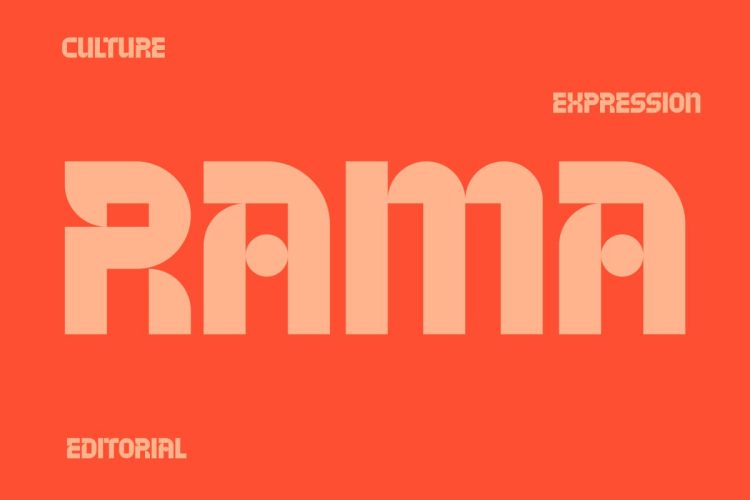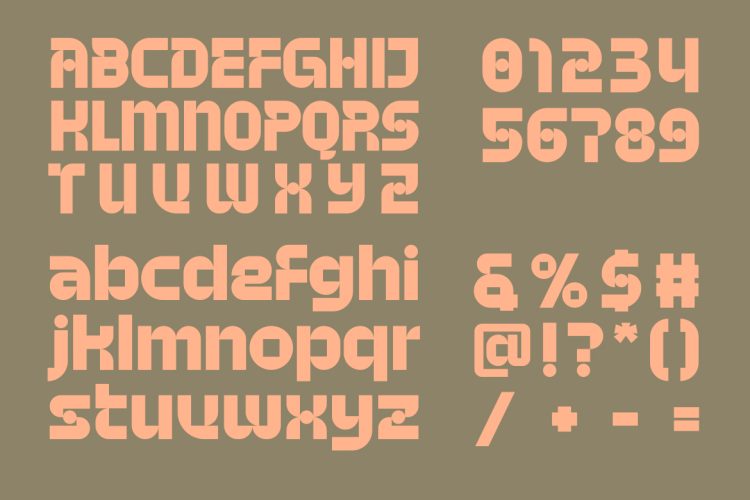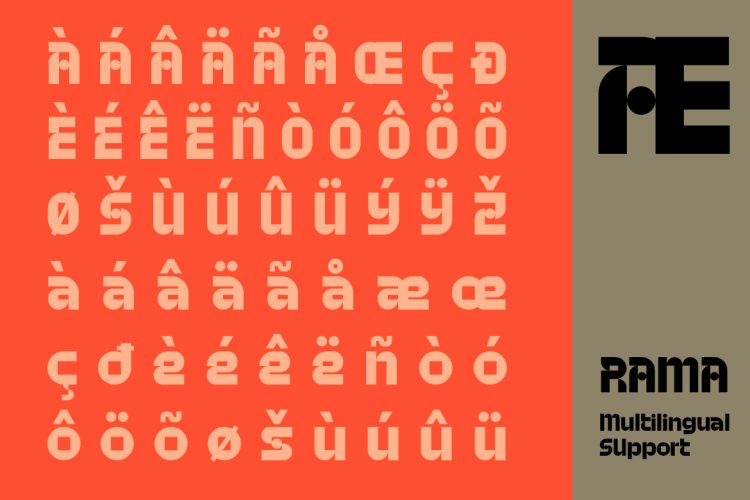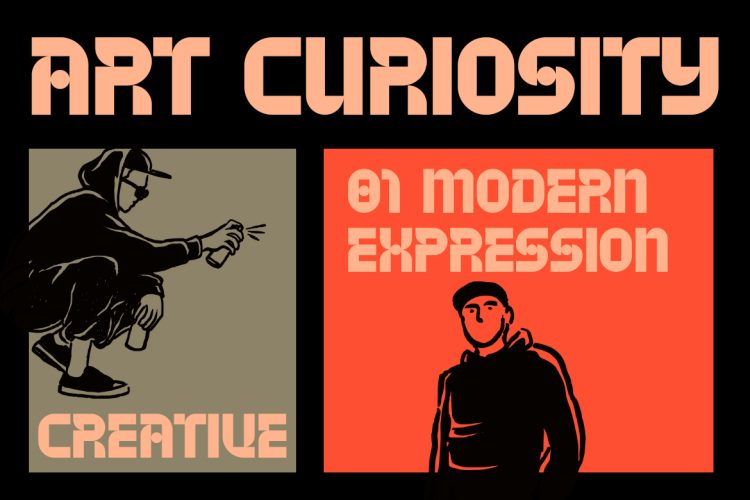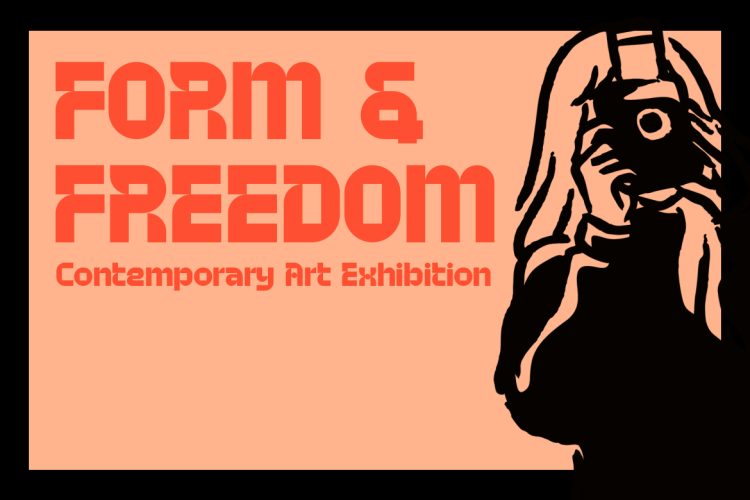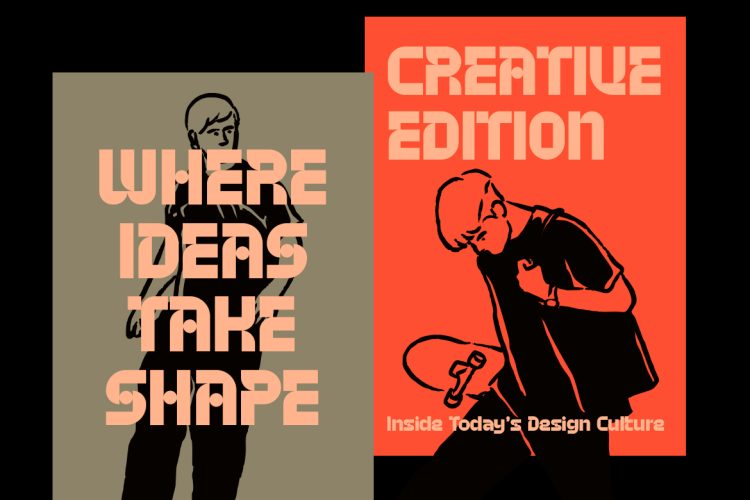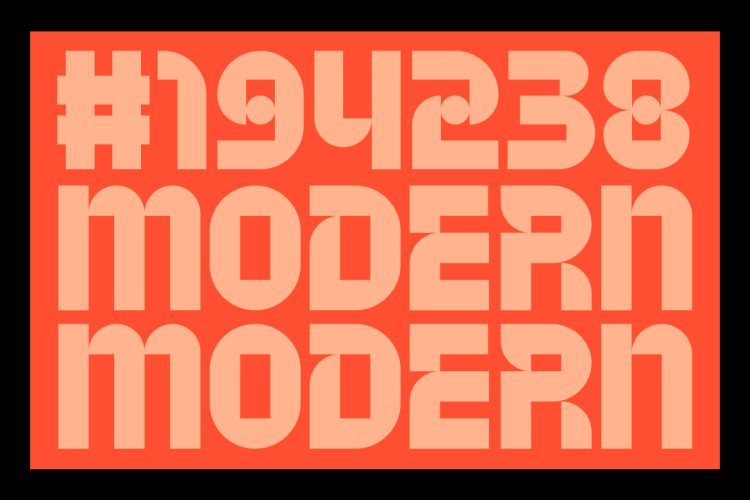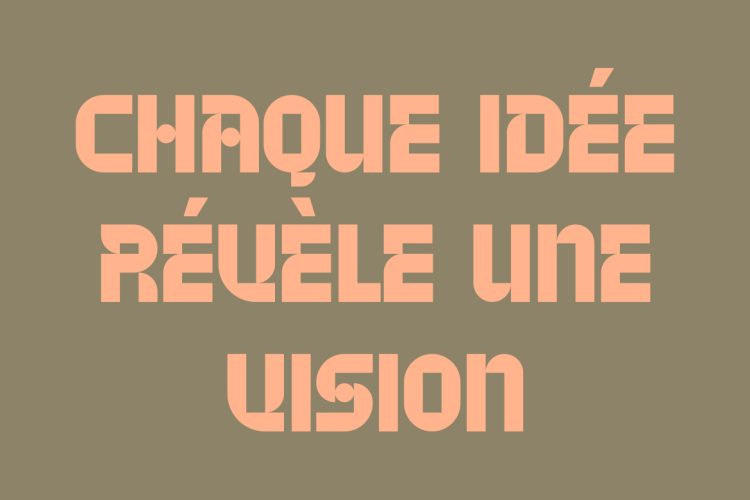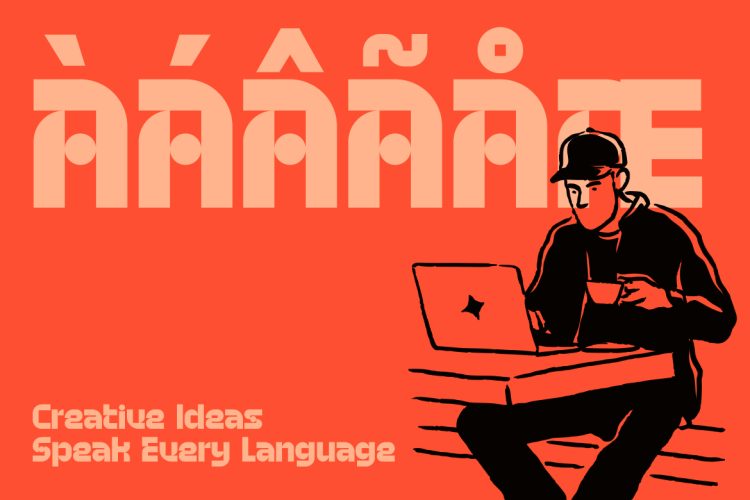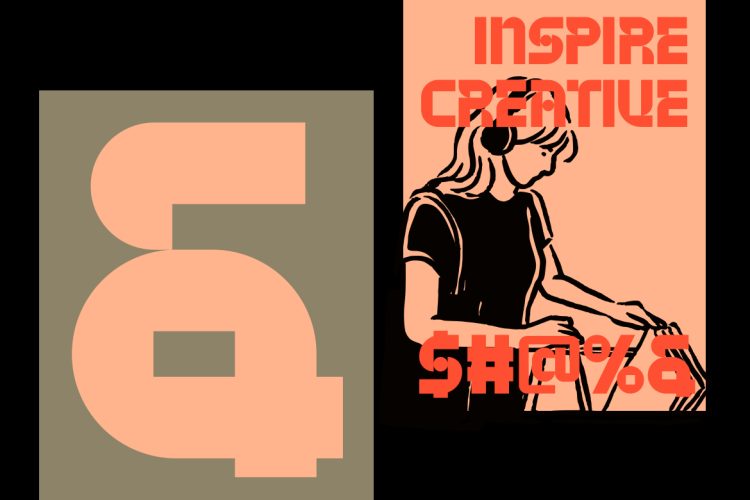
Instagram Font Rama โ Strong Shapes. Creative Voices. Limitless Expression.
Instagram Font Rama transforms bold typography into a modern visual statement with its geometric forms, futuristic proportions, and confident personality. Unlike ordinary display fonts, Rama balances strong structure with clean simplicity, creating headlines that instantly command attention. Moreover, every character carries a sharp architectural rhythm, while the balanced spacing keeps every composition stylish and easy to read. As a result, your content feels more impactful without becoming overwhelming. In addition, its contemporary design adapts seamlessly to both digital and print projects, so every layout looks fresh and professional. Whether you’re building an editorial concept or creating social media campaigns, Rama gives every message a bold creative identity. Rama comes with Multilingual Support for 67 Languages, allowing you to design confidently for audiences around the globe.
Designed for Visionary Creators and Modern Brands
Instagram Font Rama helps designers create visuals that feel daring, refined, and unmistakably contemporary. Not only does it elevate bold headlines, but it also builds a distinctive brand presence across multiple platforms. Furthermore, it fits editorial layouts, fashion campaigns, creative agencies, architecture studios, exhibition posters, album covers, streetwear branding, magazine covers, technology branding, packaging, lookbooks, portfolio presentations, advertising, and Instagram content. Meanwhile, its geometric construction keeps every word clean and readable, while its bold proportions add confidence to every composition. Consequently, every project communicates creativity, precision, and modern sophistication.
Instagram Font Rama Perfect For
- Instagram branding
- Editorial design
- Fashion campaigns
- Creative agencies
- Architecture studios
- Exhibition posters
- Streetwear branding
- Magazine covers
Turn Bold Ideas into Iconic Designs